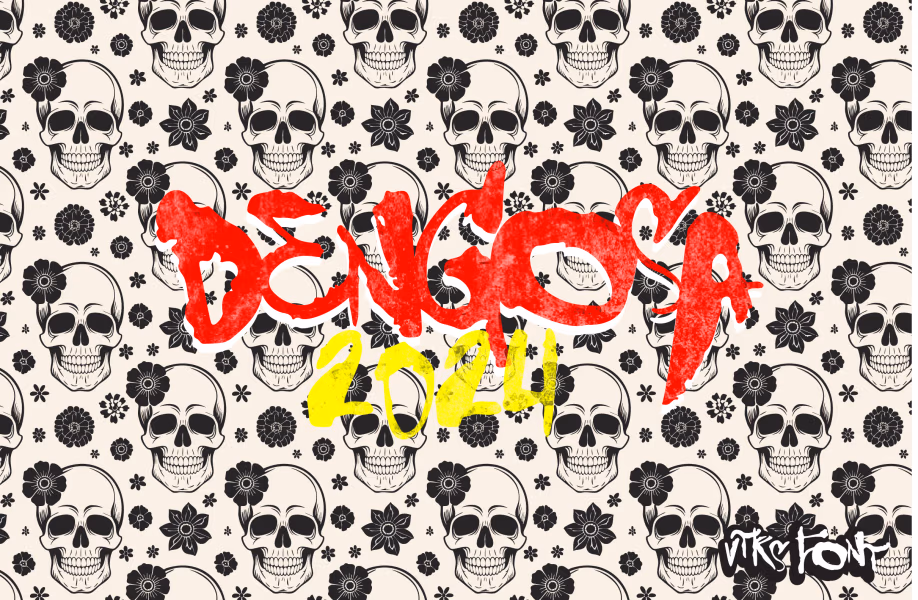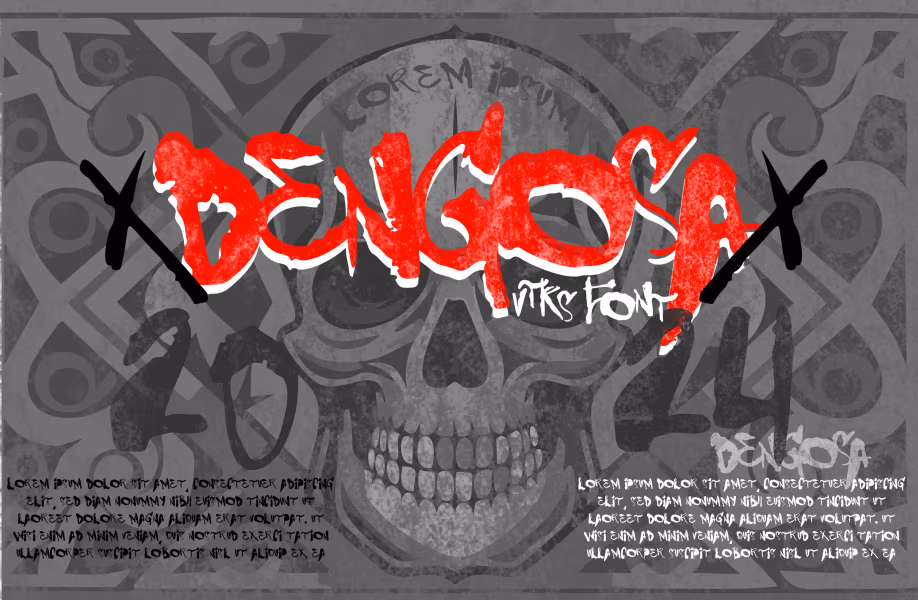
Dengosa Font
Dengosa Font is a bold, expressive display font with a raw, hand-drawn aesthetic. Its irregular strokes and slightly chaotic letterforms give it a rebellious, edgy personality, making it perfect for eye-catching designs. This font works especially well for posters, horror themes, street-style graphics, album covers, and branding that aims to stand out. Dengosa captures a sense of movement and energy, adding a dramatic and artistic touch to any project.